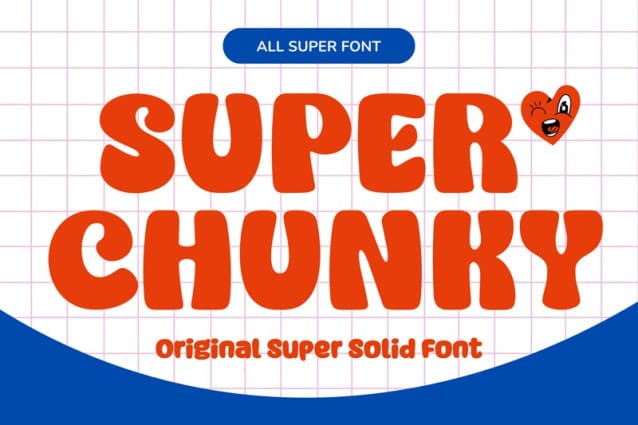
Super Chunky Font
Super Chunky Font is not your ordinary font. It’s a bold statement designed to attract attention and leave a lasting impression. Forget subtlety, SuperChunky encompasses chunky letterforms with solid weight and unwavering confidence.